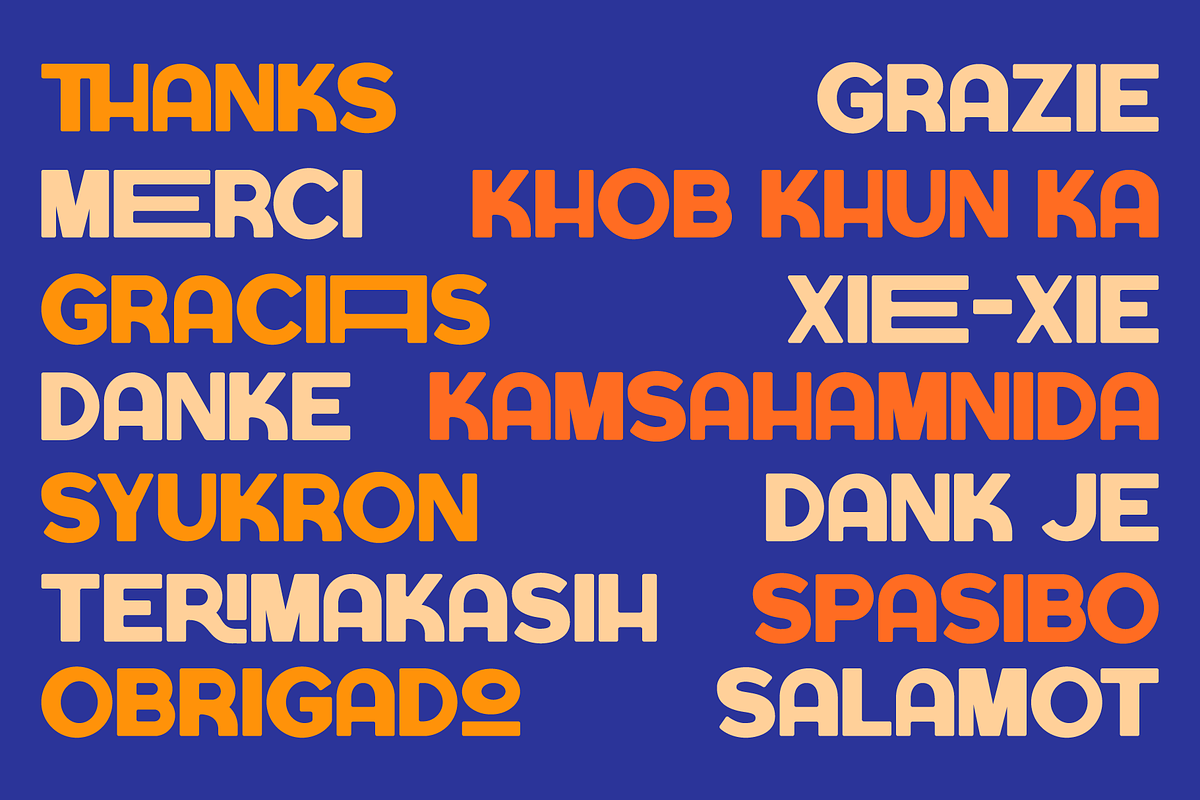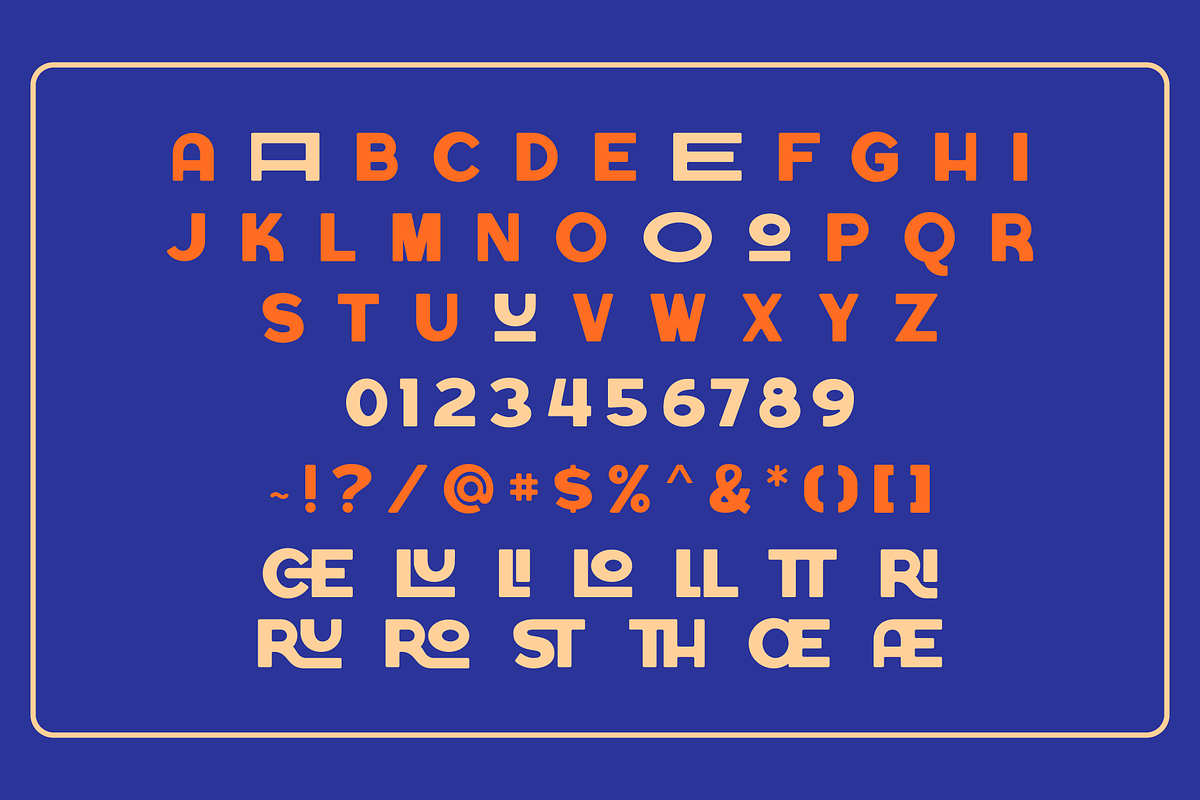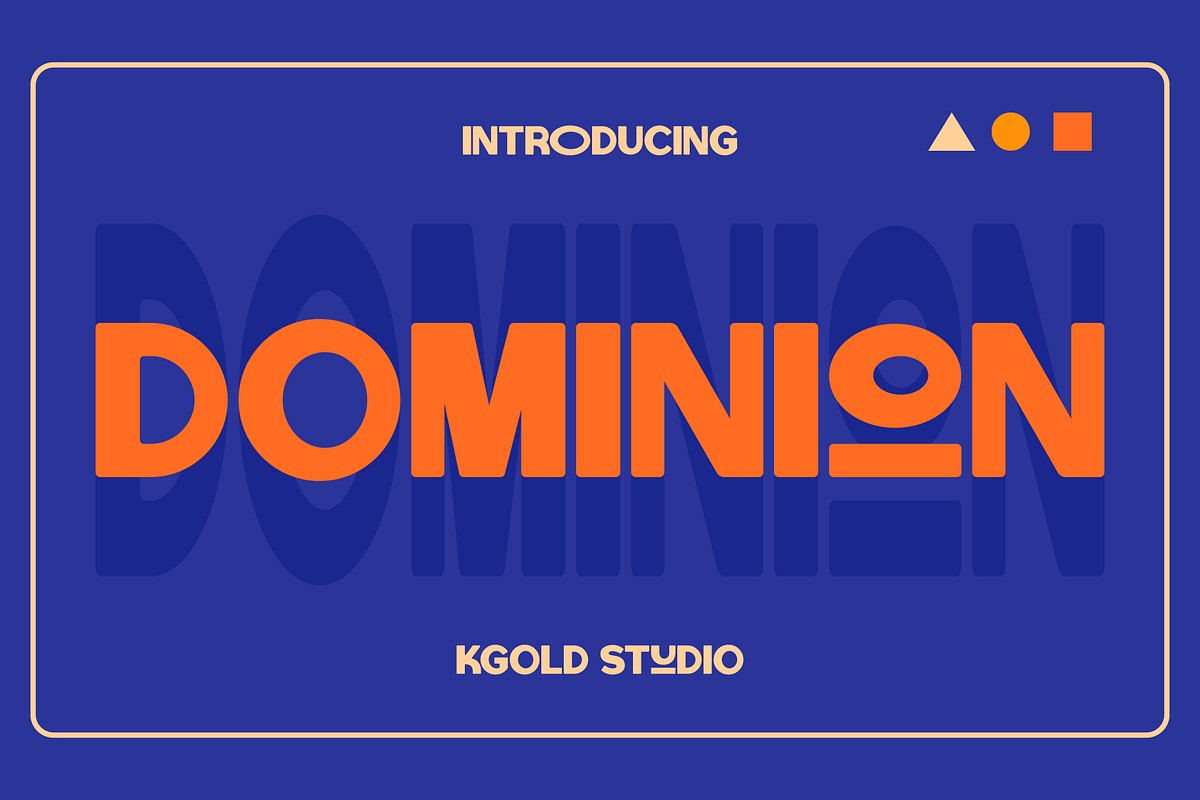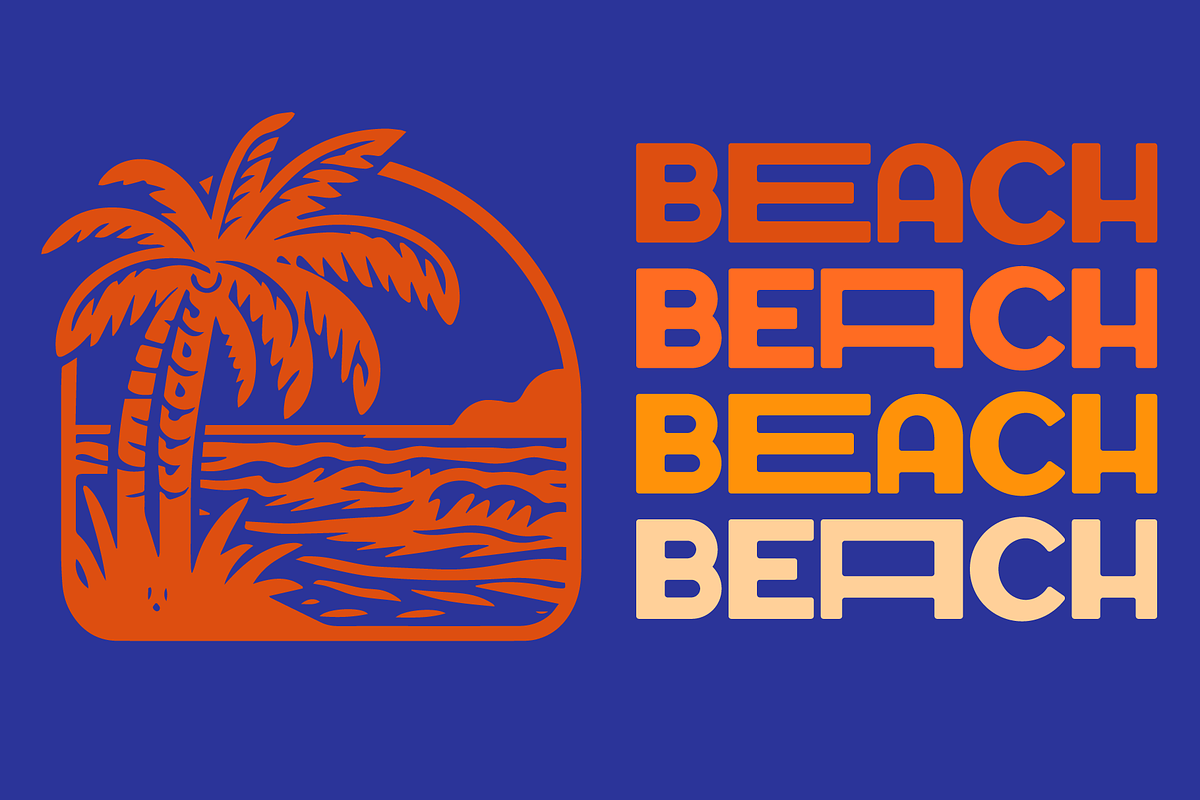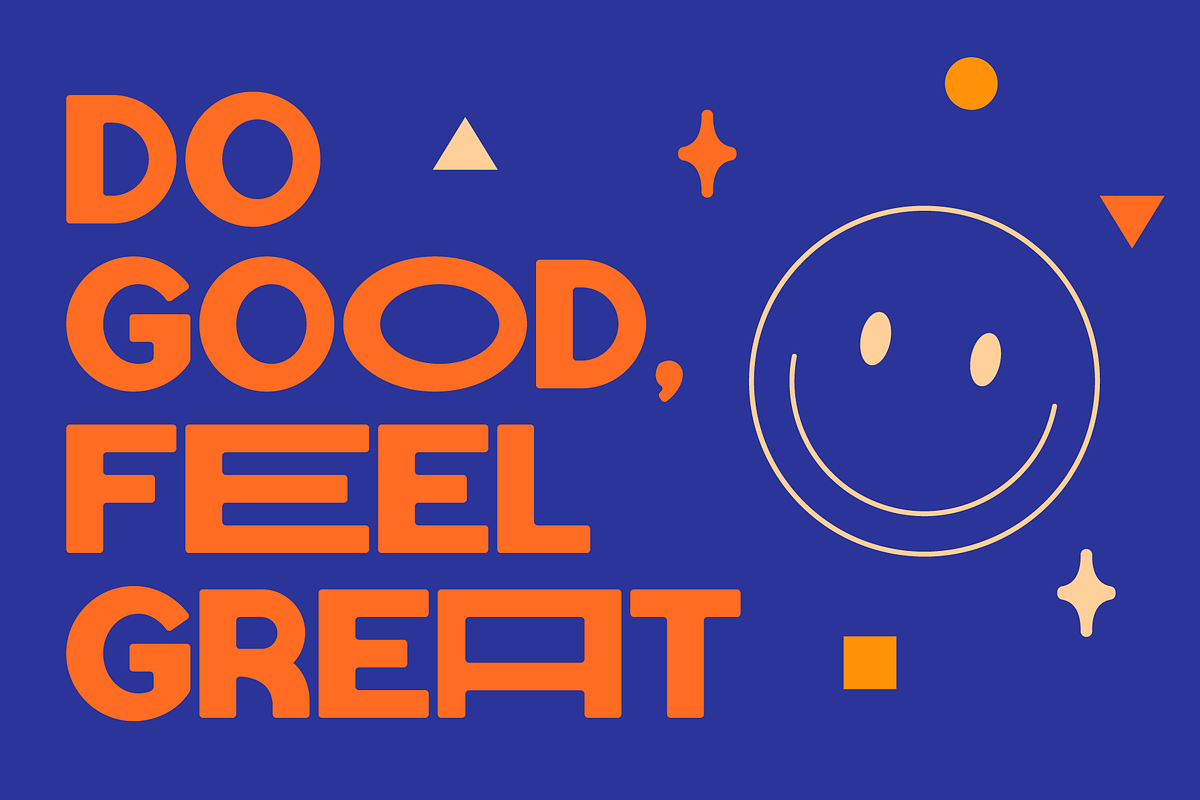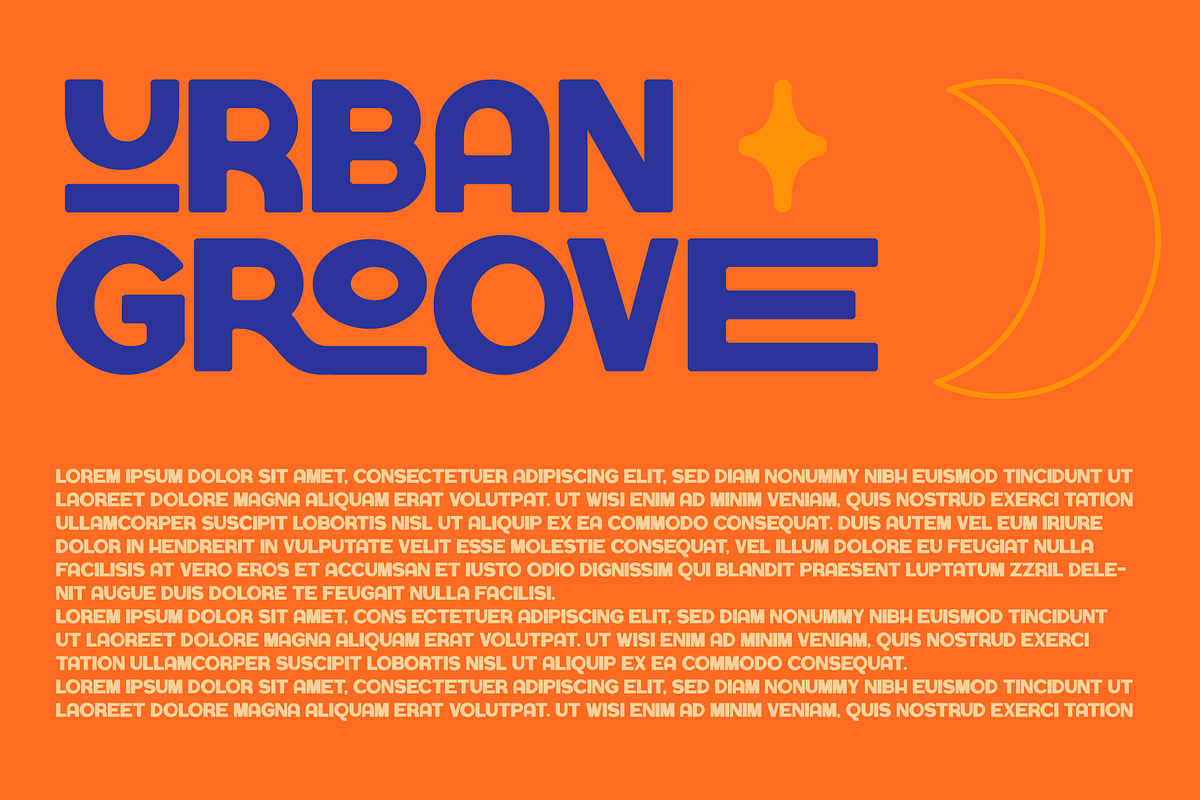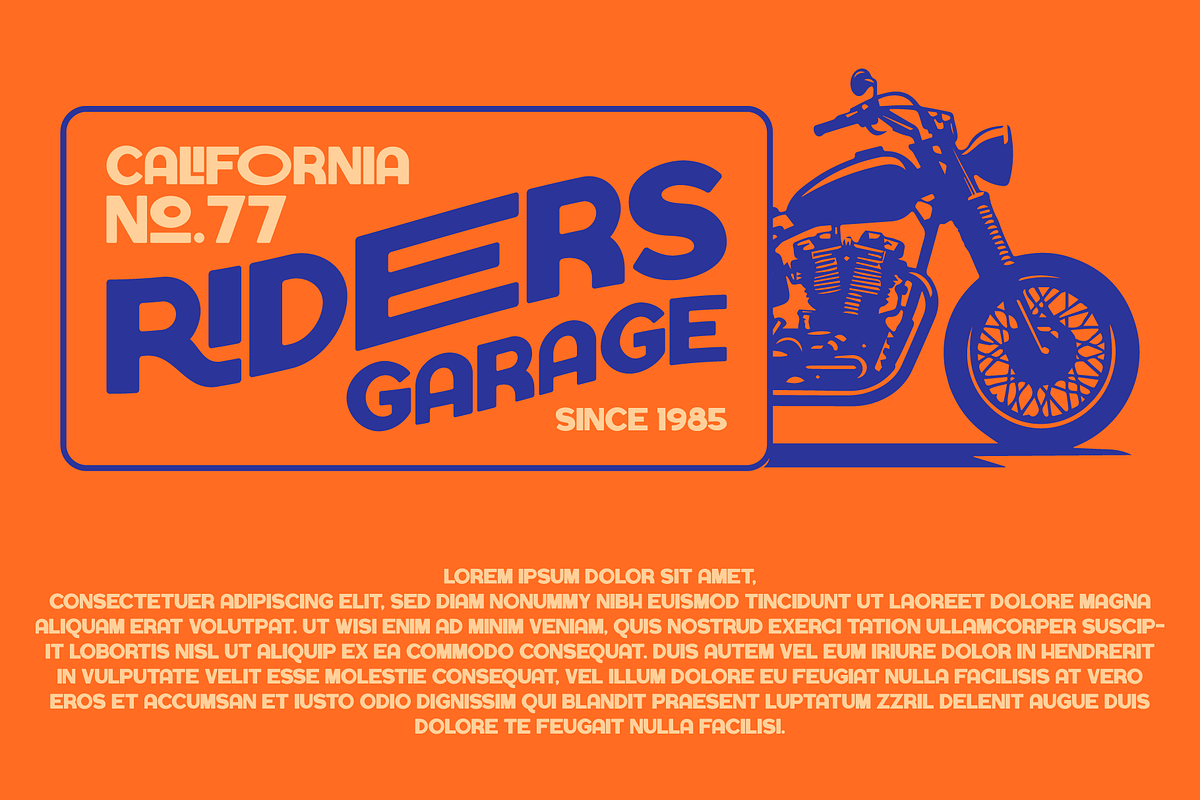
Dominion
Introducing "Dominion" – a timeless sans-serif font meticulously crafted to evoke the essence of classic retro design. With its sleek lines and refined simplicity, Dominion brings an air of vintage sophistication to your projects.
Inspired by the typography of the mid-20th century, this font seamlessly blends nostalgia with modern design sensibilities. The clean, sans-serif characters exude a sense of clarity and readability, making "Dominion" an ideal choice for a variety of applications.
The font's distinctive features include perfectly balanced letterforms and subtle geometric nuances that pay homage to the golden era of design. Whether you're working on a branding project, editorial layout, or signage, "Dominion" adds a touch of refined elegance to your visual communication.
Each character in "Dominion" tells a story of timeless aesthetics and enduring style. The font family offers a range of weights, allowing you to effortlessly create hierarchy and visual interest in your designs. From bold headlines to delicate body text, "Dominion" adapts seamlessly to diverse typographic needs.
Elevate your creative projects with the "Dominion" font – where classic meets contemporary, and every letter carries the legacy of a bygone era. Discover the perfect blend of retro charm and modern functionality, and let "Dominion" transform your designs into classics.